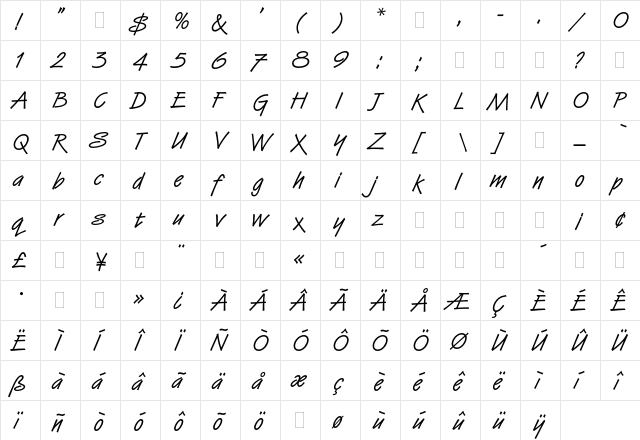
Van Dijk Plain
Design Context for Van Dijk Typeface
Van Dijk is a composed and adaptable typeface that performs quietly and consistently across a wide range of design contexts.